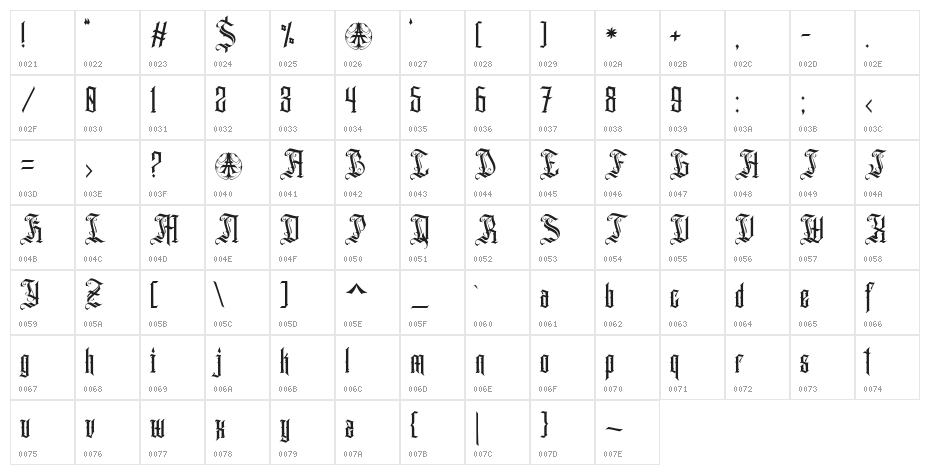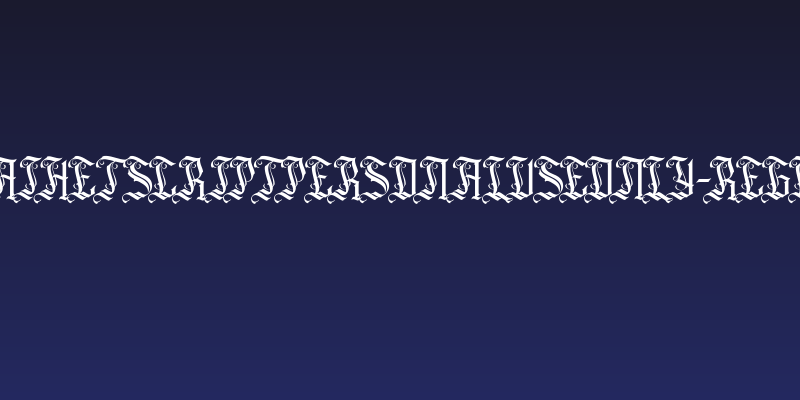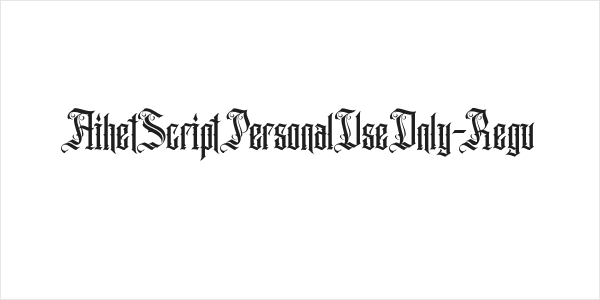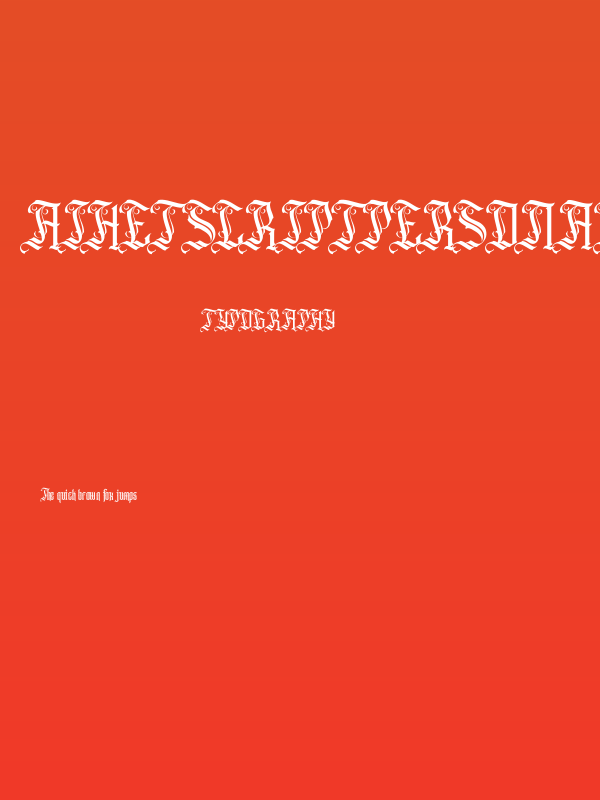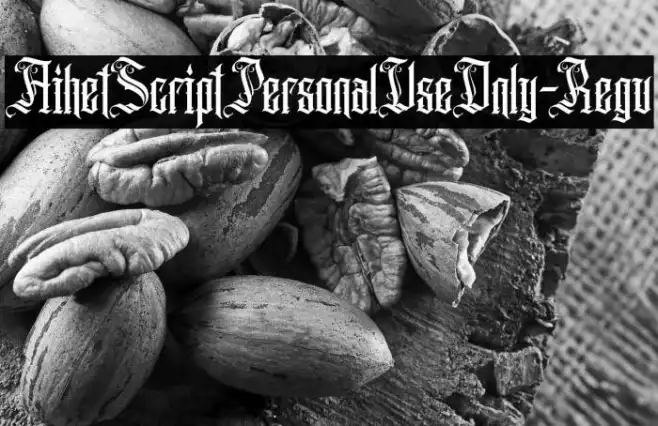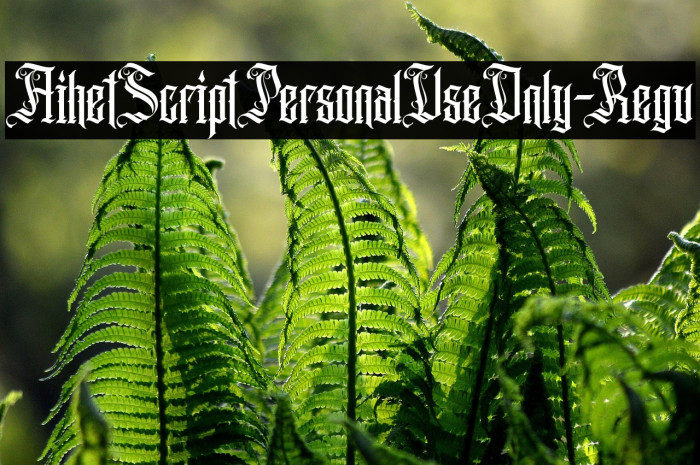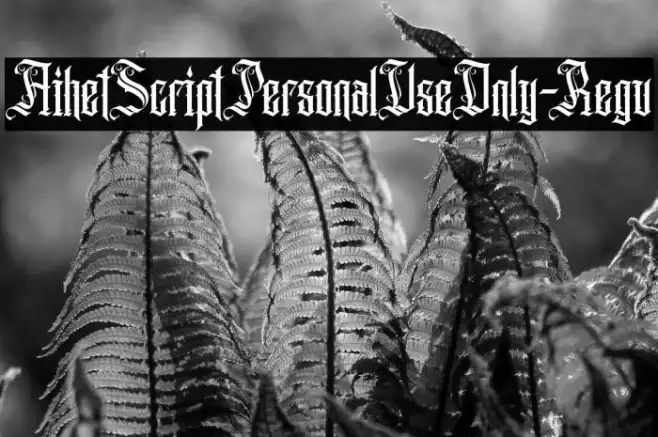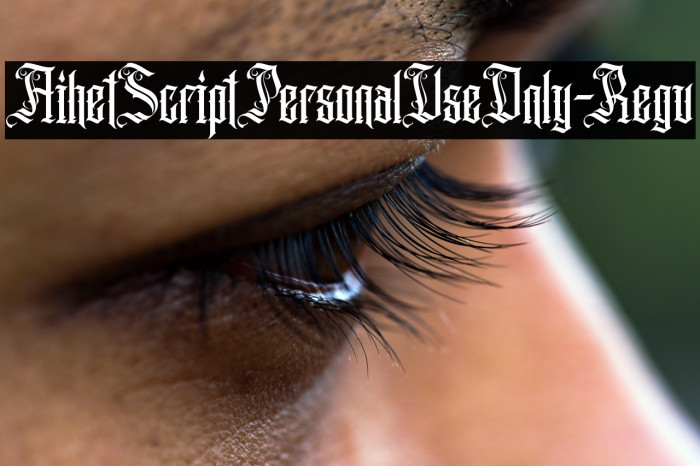
AihetScriptPersonalUseOnly-Regu Font
AihetScriptPersonalUseOnly-Regu Description
This font features a highly decorative and intricate design, reminiscent of traditional blackletter styles. The characters are adorned with elaborate flourishes and sharp angles, giving it a bold and dramatic appearance. Each letter is meticulously crafted with a high level of detail, making it suitable for projects that require a touch of elegance and historical flair. The uppercase letters are particularly ornate, while the lowercase letters maintain a consistent style with slightly less embellishment. The numbers and special characters follow the same ornate design, ensuring a cohesive look across all text elements.
| Proposed Projects | Ideal for use in branding, logos, invitations, certificates, and any project requiring a historical or gothic aesthetic. |